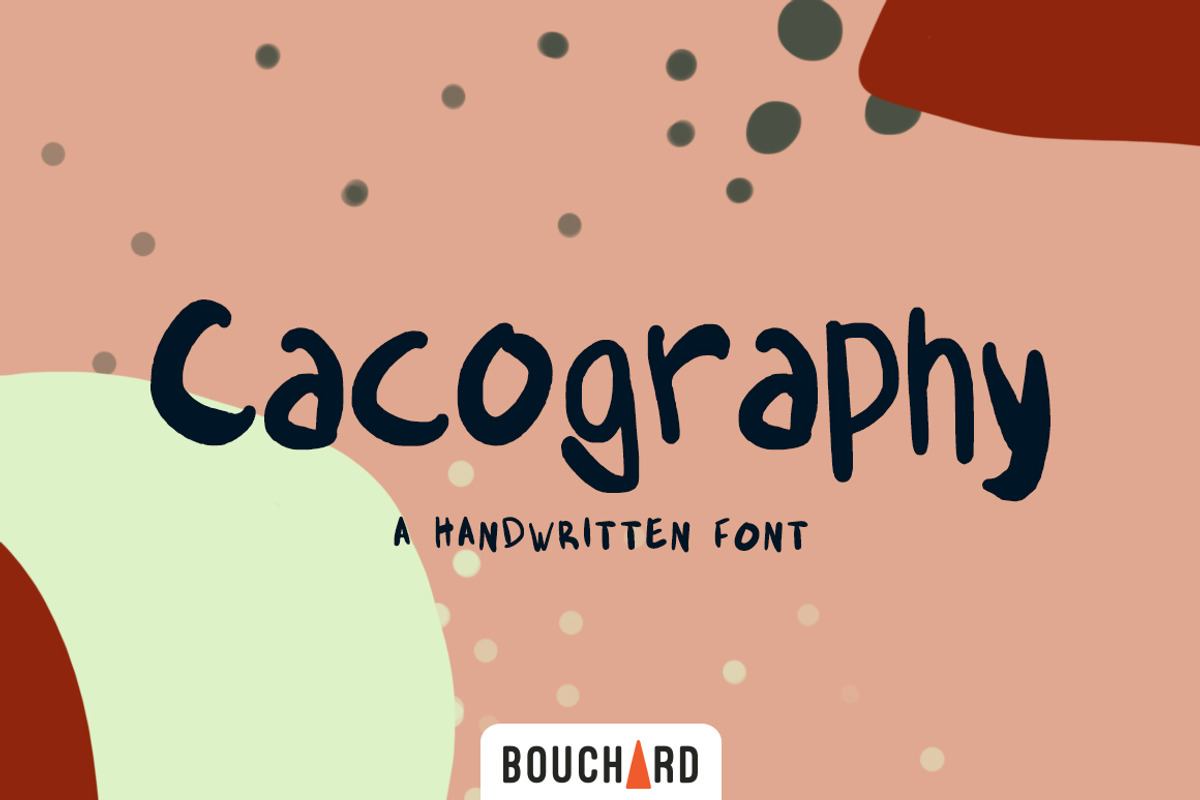
Cacography Handwritten Font Free Download is a raw, expressive typeface that captures the beauty of imperfect handwriting. With its edgy strokes and natural irregularities, this font is ideal for artistic projects, personal branding, quote graphics, album art, and any design that needs a bold, handwritten attitude.
Whether you're going for a grunge aesthetic, a creative journal look, or hand-drawn design vibes, Cacography brings realness and originality to every letterform. It’s the perfect handwritten font for standing out with character and emotion.